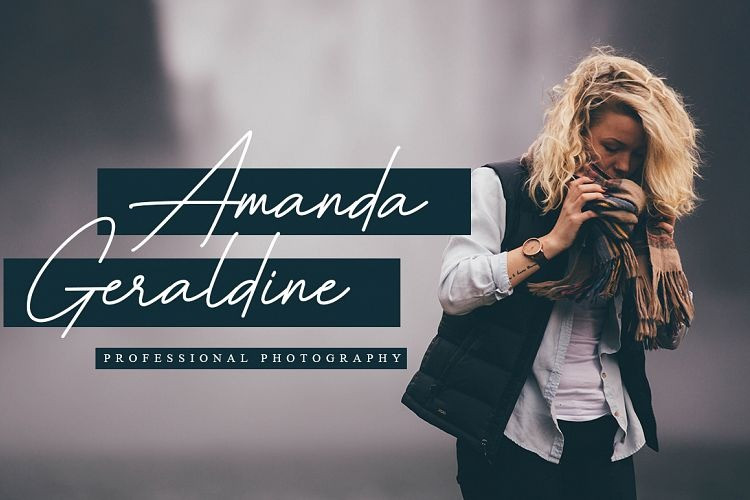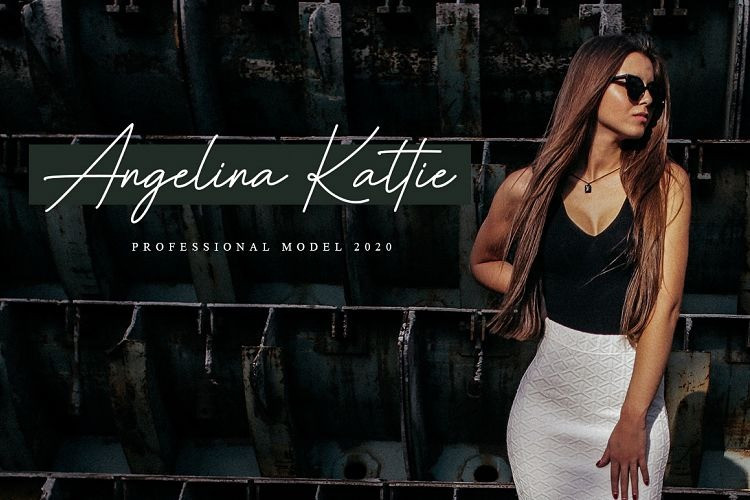
Fatiha Font
Fatiha Font by Tri Wahyudi 20,939 downloads
Fatiha Font
Fatiha Script Font, You can use it as a logo, badge, insignia, packaging, headline, poster, t-shirt/apparel, greeting card, and wedding invitation.